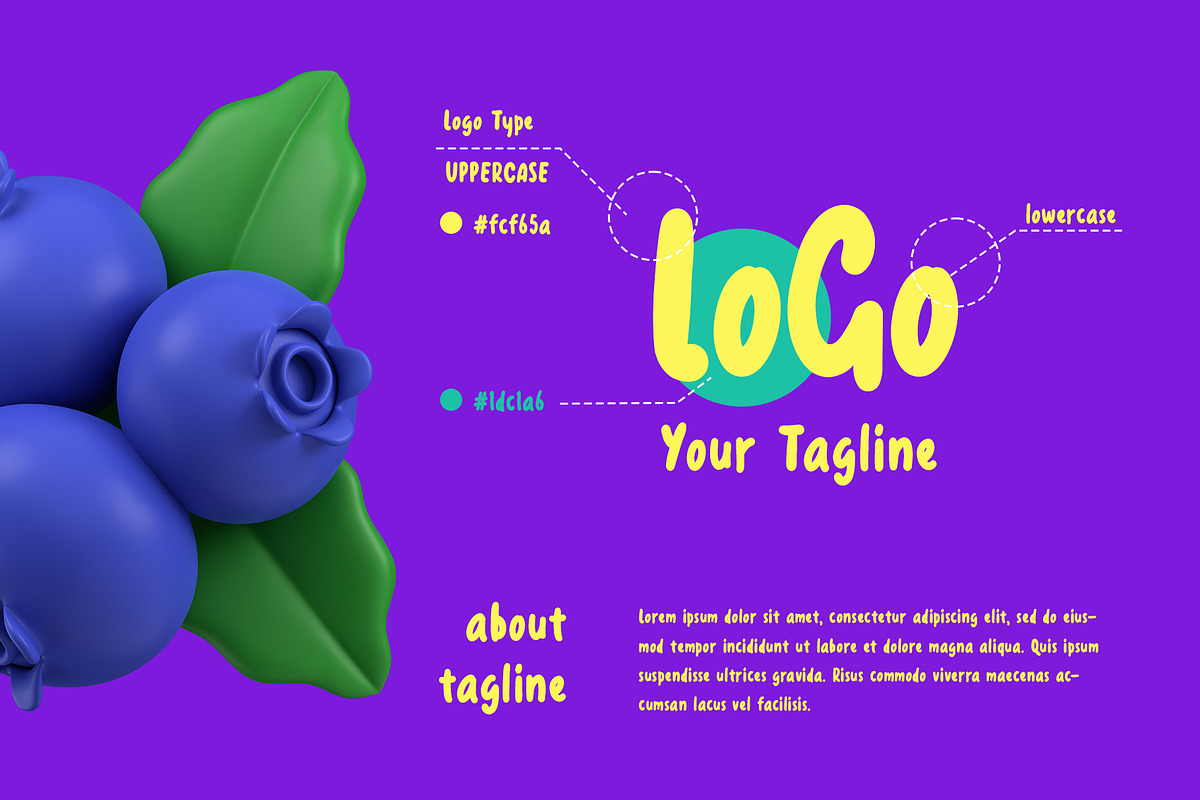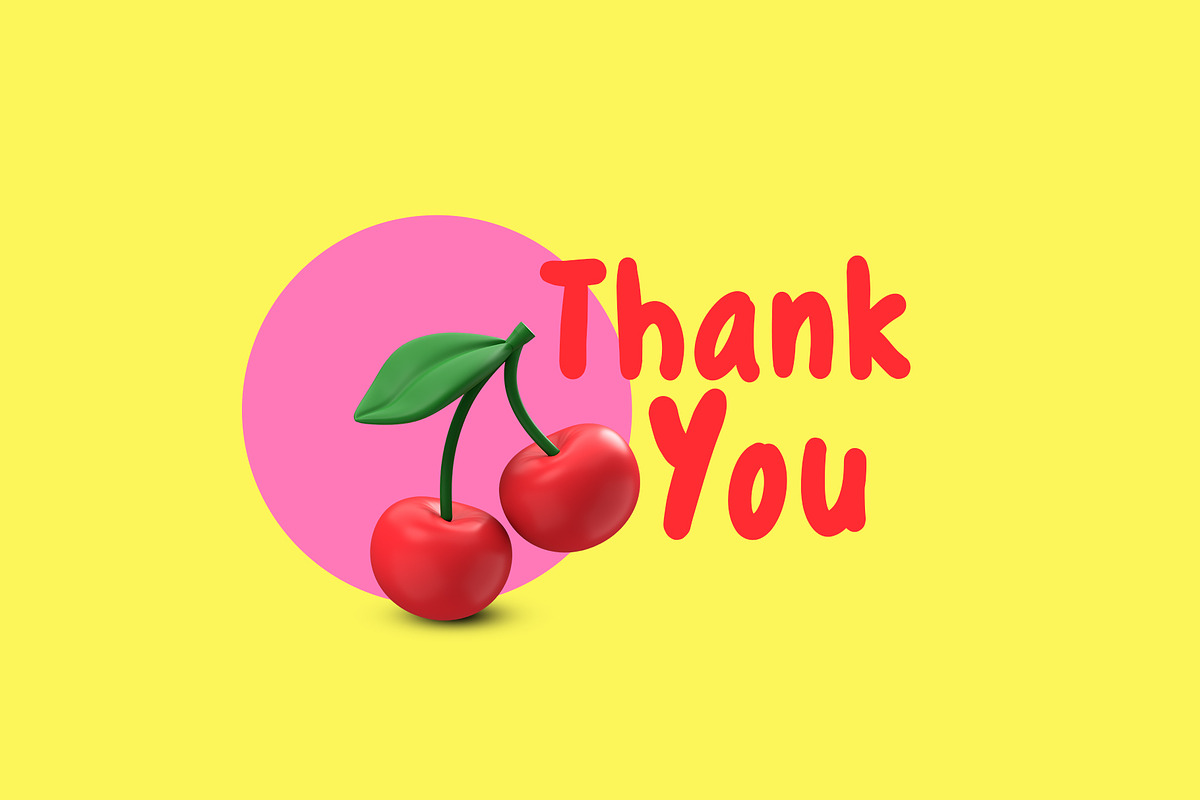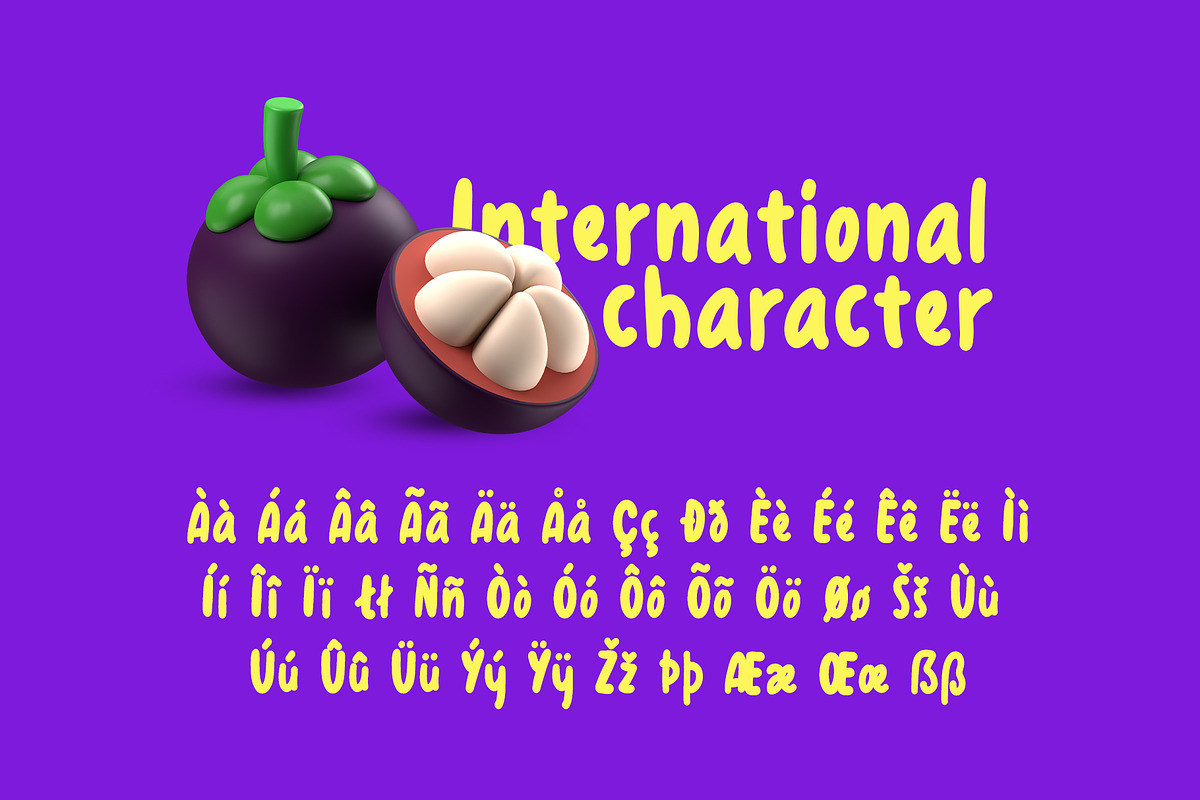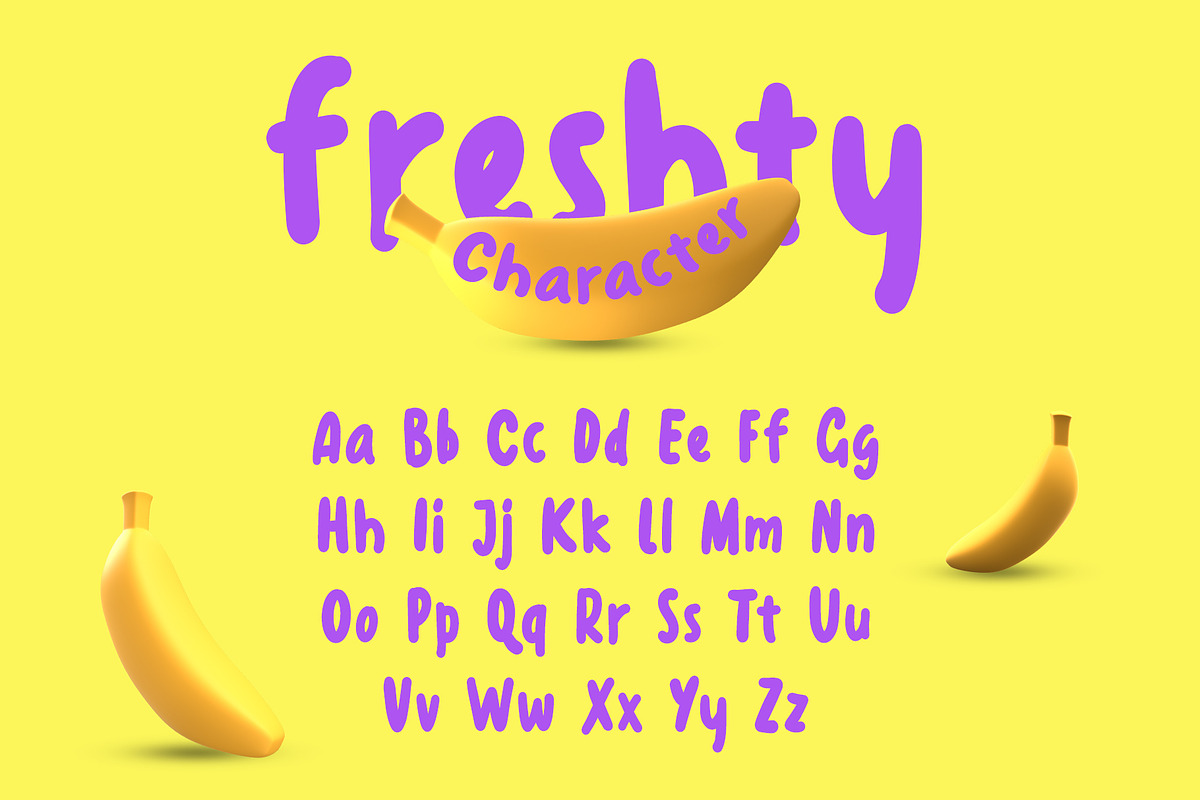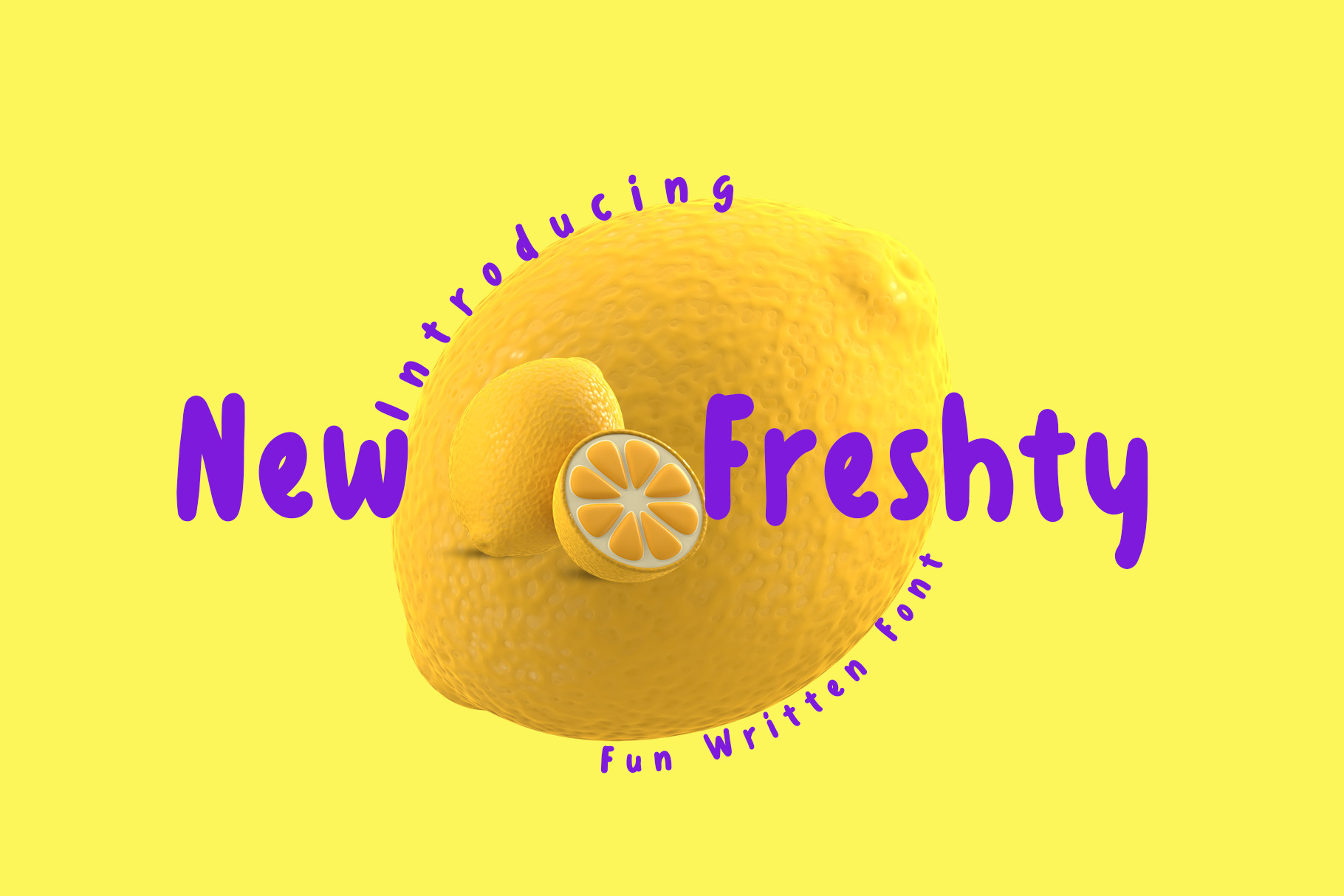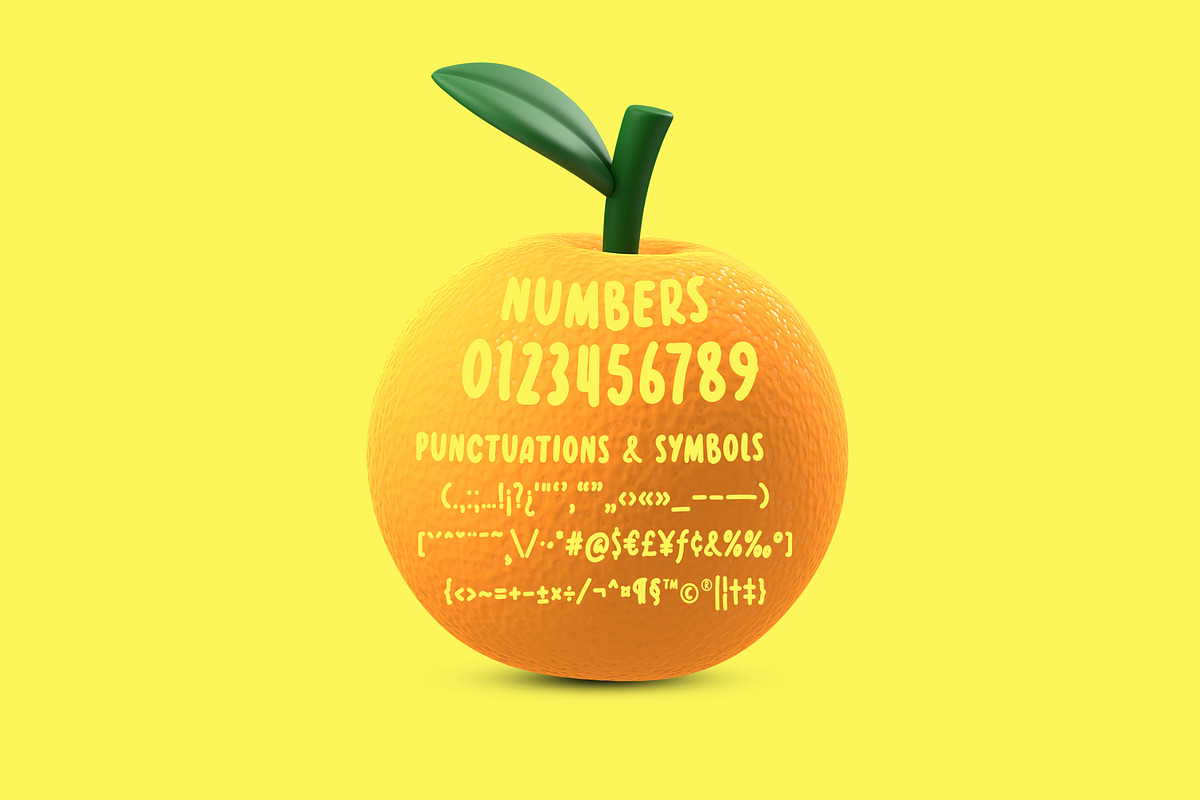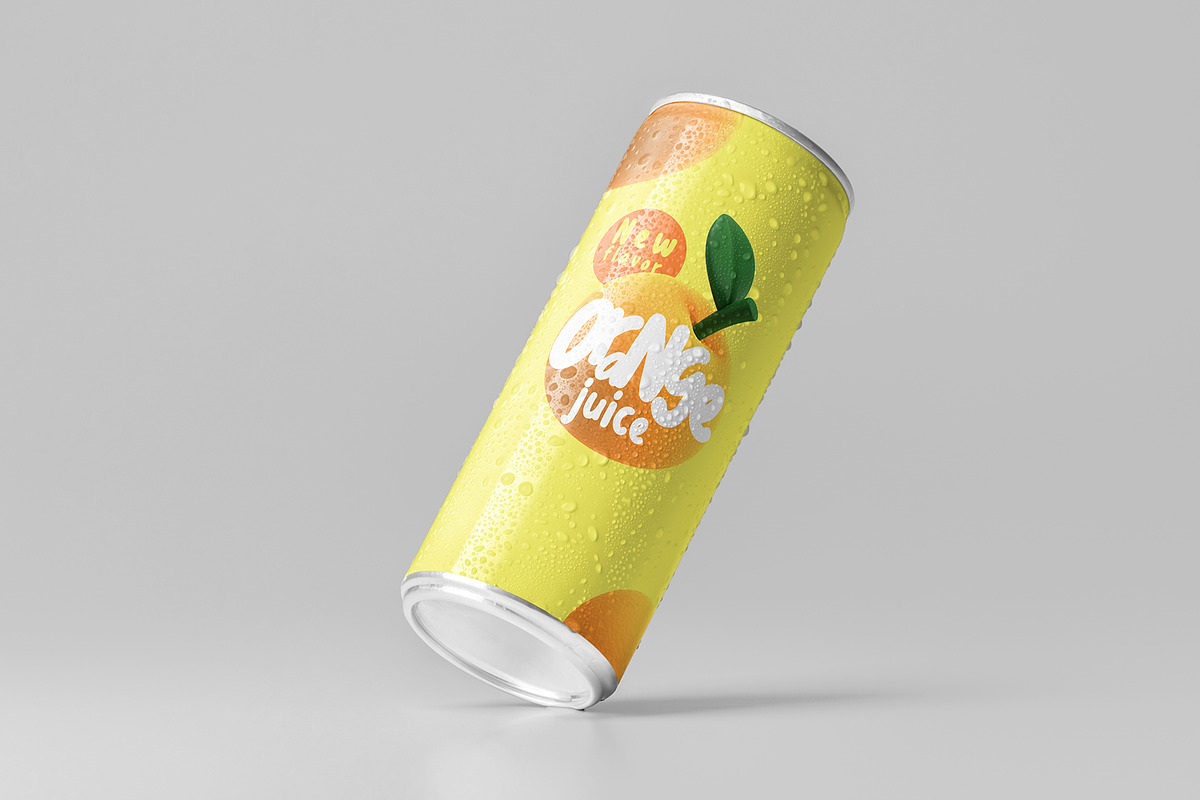
New Freshty A Fun Written Font
New Freshty is a font designed to reflect freshness and cheerfulness. In this font, each letter and character has a dynamic, soft, and flowing shape that exudes refreshing beauty.
The New Freshty font is created with the intention of bringing an energetic and positive atmosphere to designs. We were inspired by the beauty of nature, vibrant colors, as well as the joy and spirit of everyday life. We aimed to create a font that lifts the mood and conveys a fresh and delightful message.
With the ever-changing landscape of design, the New Freshty font provides an opportunity for designers to incorporate elements of freshness and cheerfulness into their projects. With dynamic shapes and bright colors, this font can add a delightful and captivating touch to graphic designs, posters, branding, and more.
By using the New Freshty font in your design journey, you will bring a refreshing atmosphere and positive spirit. This font will bring joy and visual appeal that can captivate attention and deliver uplifting messages. With a combination of dynamic shapes and implied cheerfulness in each letter, this font will enrich your designs with a pleasant and captivating impression.